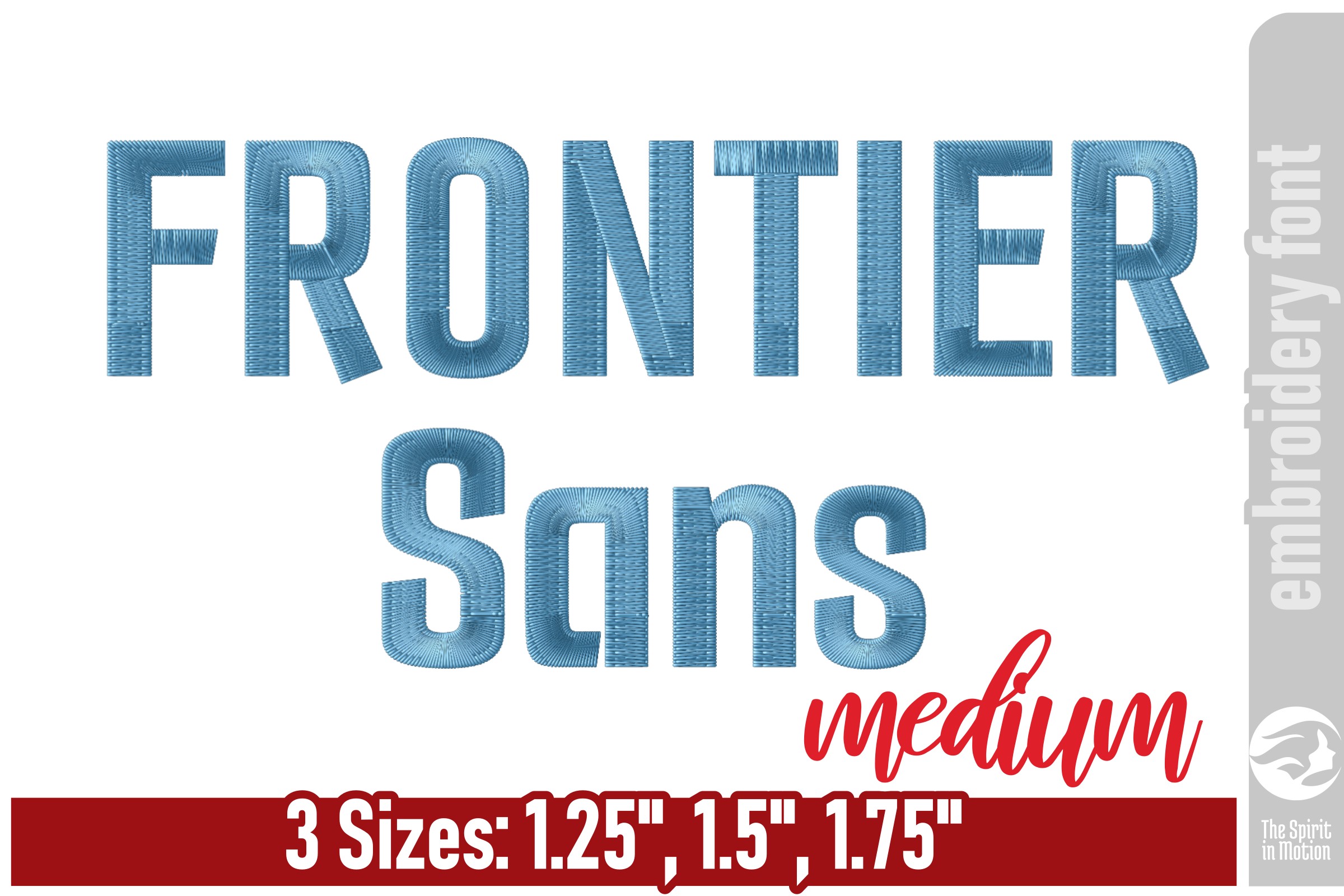
Frontier Sans Embroidery Font - Medium
Frontier Sans is a minimalist sans-serif font specifically digitized for high-performance machine embroidery. Featuring consistent, bold strokes and a sturdy geometric frame, this typeface is engineered to maintain perfect clarity and density across various fabric types. Its thick columns and smooth curves make it an ideal choice for hats, hoodies, and architectural signage where durability and legibility are paramount. Whether you are creating a logo or apparel designs, Frontier Sans ensures your machine runs smoothly with a professional, high-end finish.